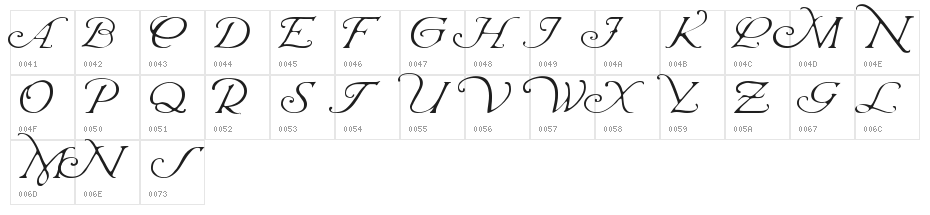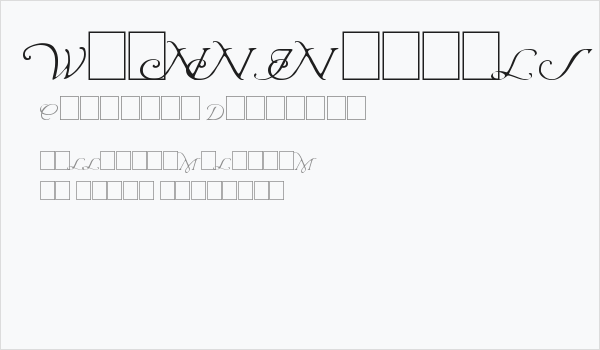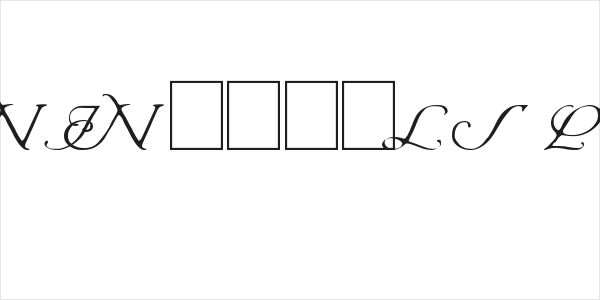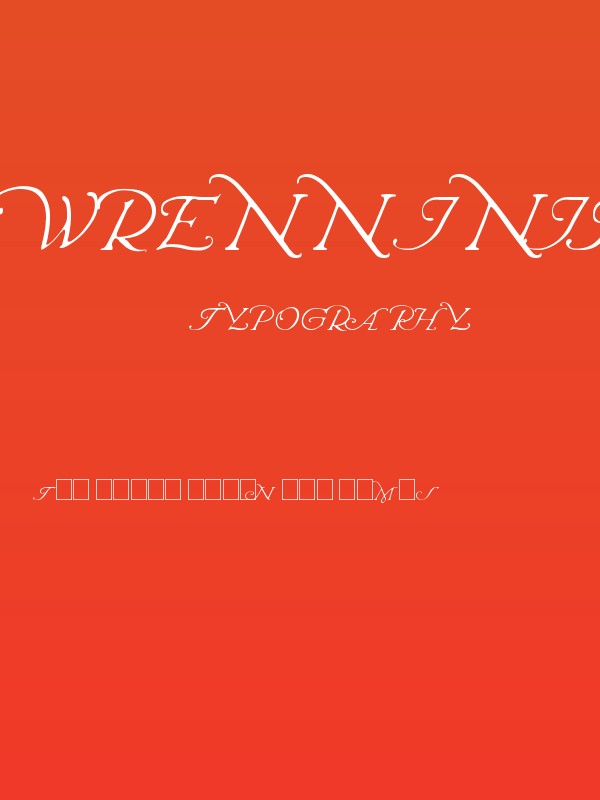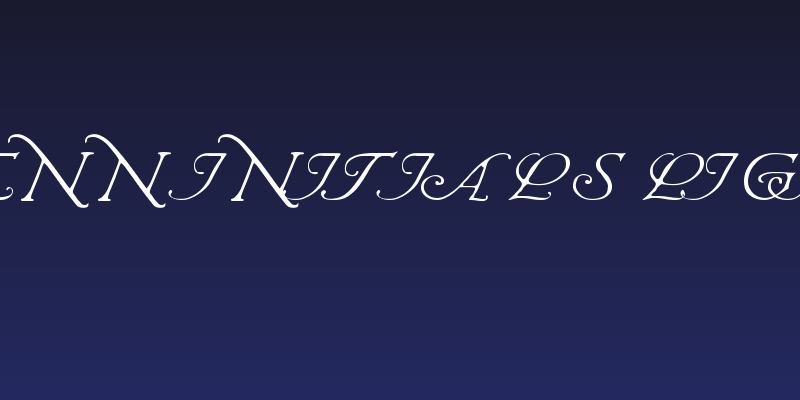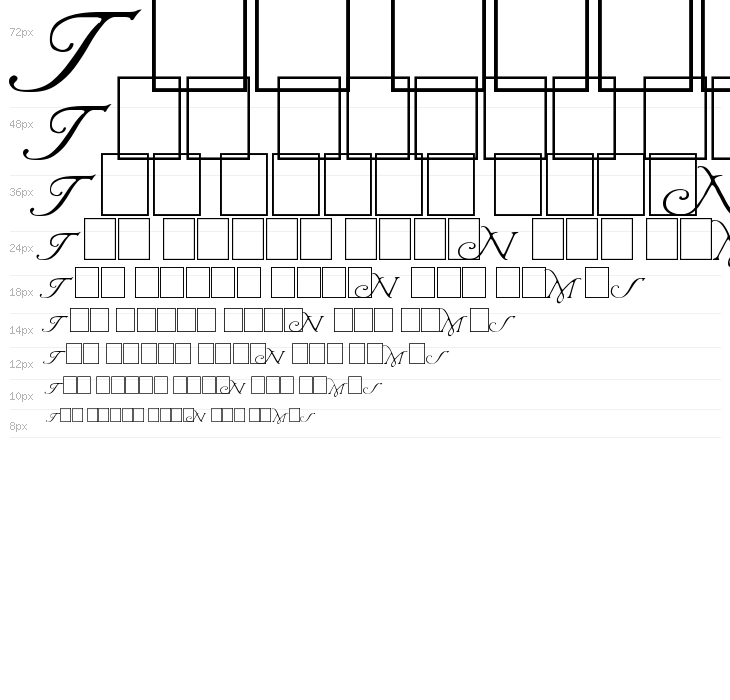
Wrenn Initials Light Font
Wrenn Initials Light Description
This elegant script font features ornate, flowing letterforms with intricate swashes and flourishes, creating a sophisticated and decorative appearance. The uppercase letters are particularly elaborate, showcasing a high level of detail and artistry. The font's delicate lines and curves give it a refined and graceful look, making it ideal for formal and luxurious designs. The overall style is reminiscent of classic calligraphy, with a modern twist that adds a touch of elegance and charm. The font's light weight and high contrast between thick and thin strokes enhance its decorative appeal, making it suitable for special occasions and high-end branding.
| Proposed Projects | Wedding invitations, luxury branding, elegant stationery, formal event programs, and decorative headlines. |